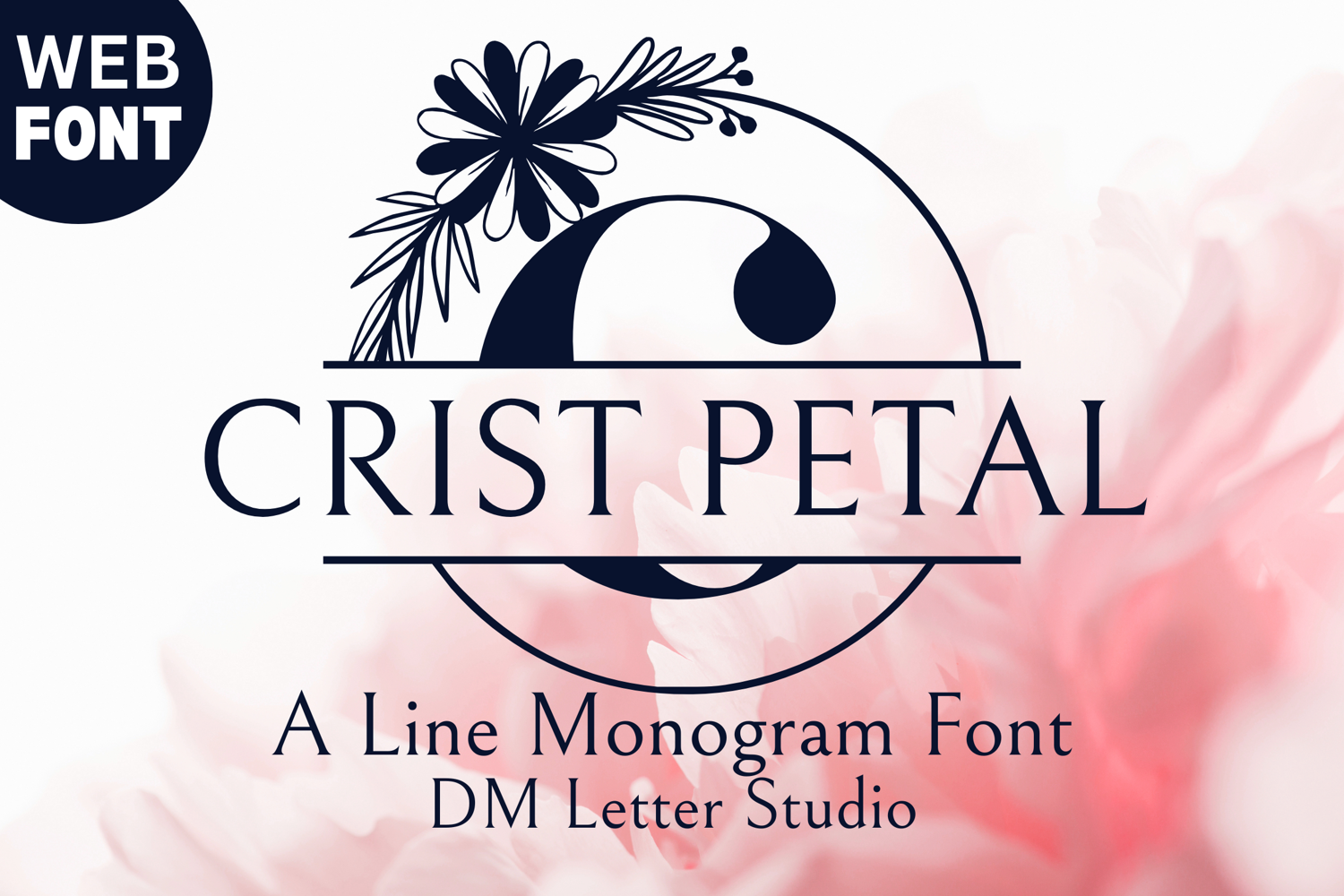
Crest Petal Split Monogram - Elegant Floral Split Monogram
Crest Petal Split Monogram – Elegant Floral Split Monogram Font
Crest Petal Split Monogram is a graceful serif font with split-letter styling and floral embellishments, perfect for crafting customized crests, name signs, and upscale event designs. Each uppercase letter features a delicate botanical flourish and a clean center split, making it ideal for inserting names or custom text. This monogram font brings refined charm to weddings, boutique branding, and luxurious gifting.
• Split Monogram Style: Classic uppercase letters divided by a clean horizontal line for customization.
• Floral Accents: Petal-inspired botanical elements wrap around each letter for an artistic, organic touch.
• Ready for Customization: Perfect for monograms, signage, and engraved-style gifts.
• Ideal For: Wedding signage, customized gifts, Cricut projects, custom logos, branding, and floral-themed decor.